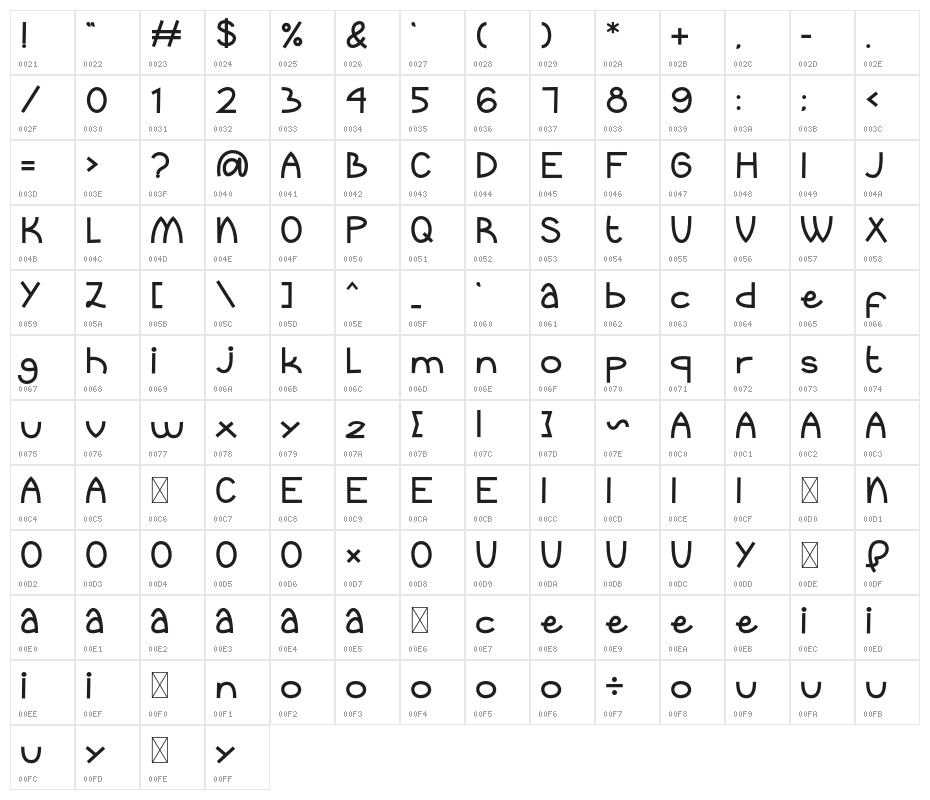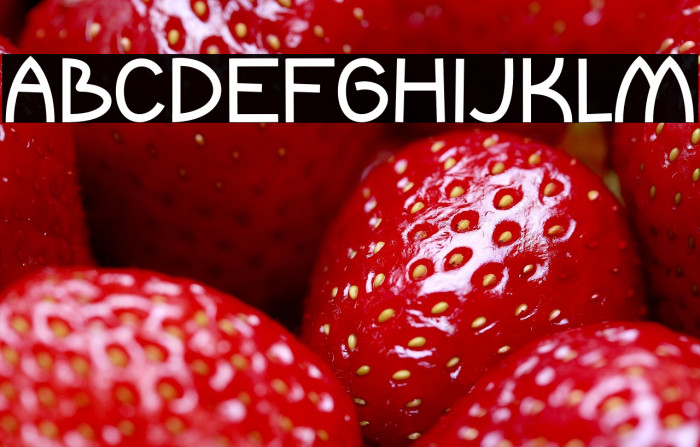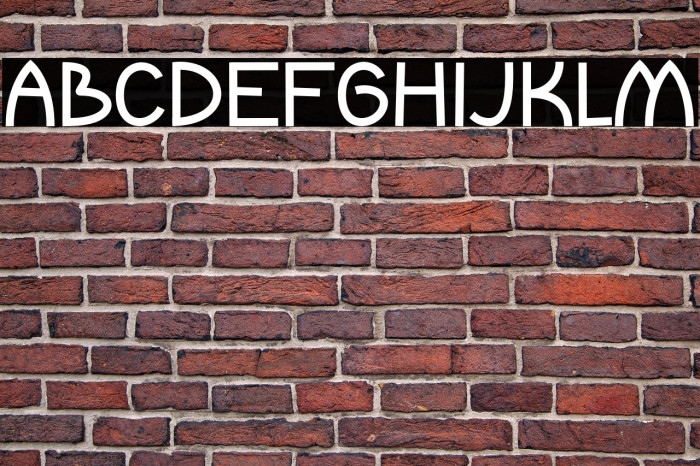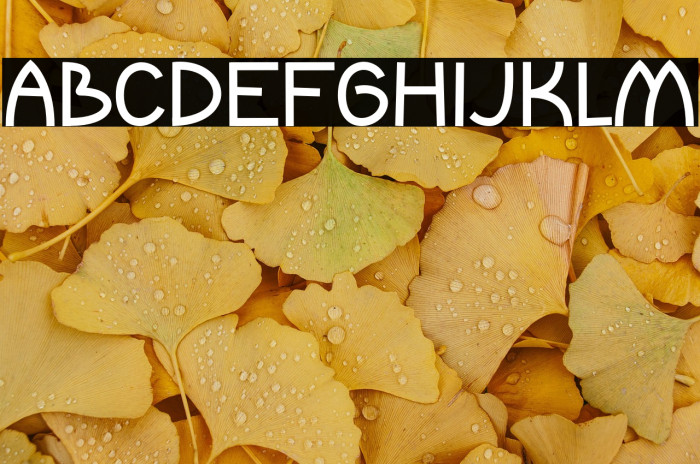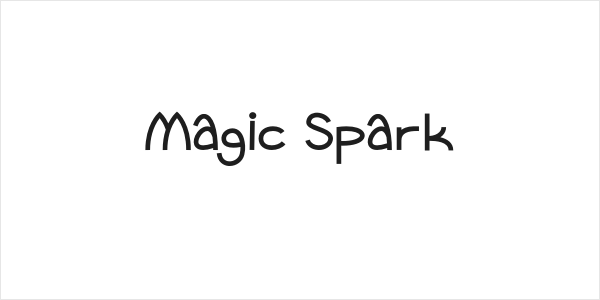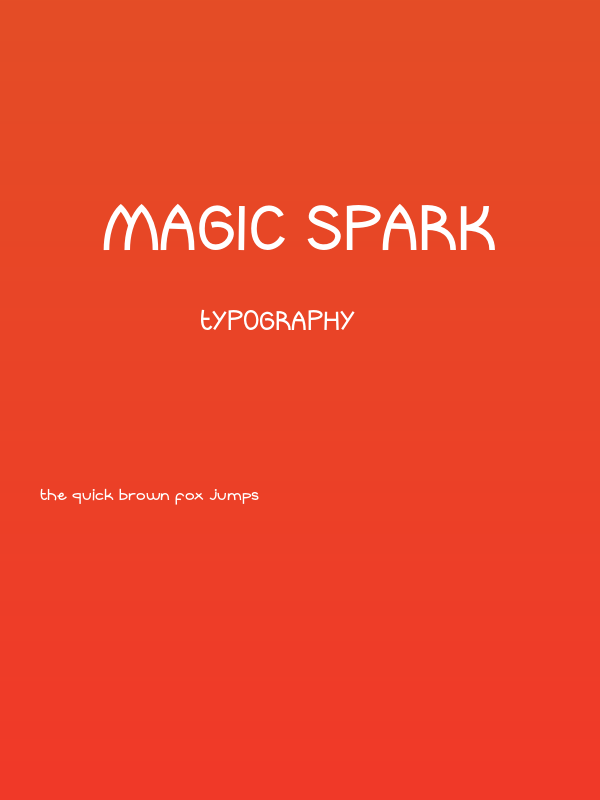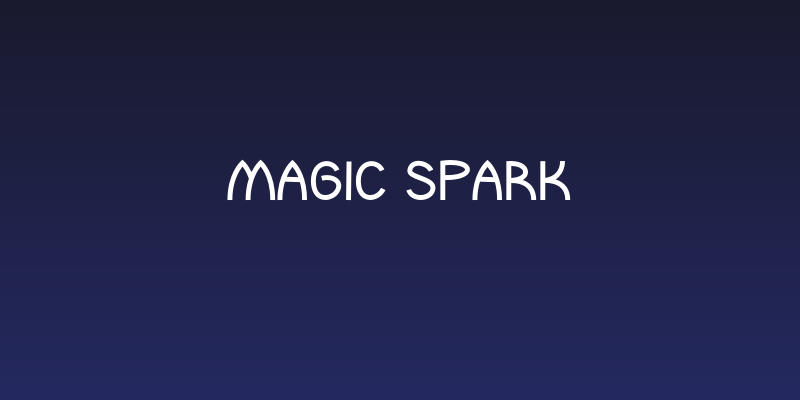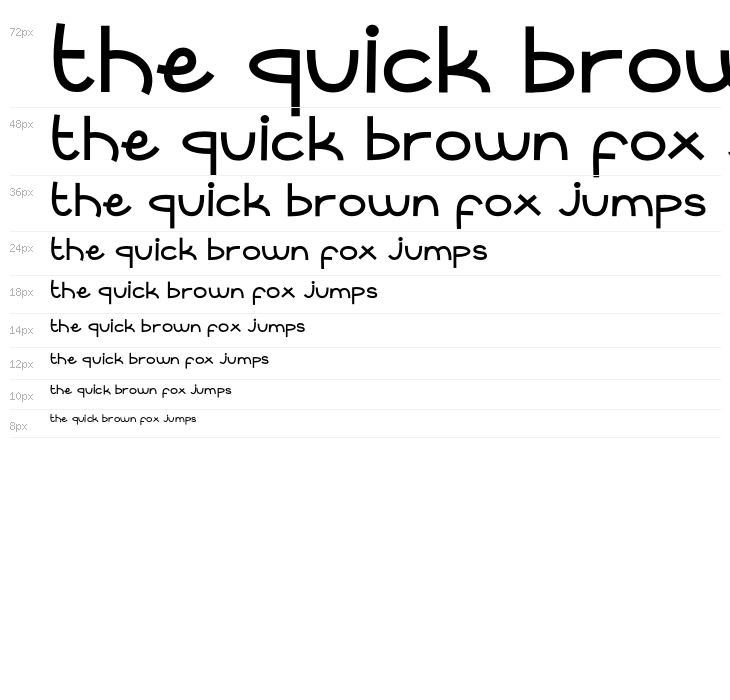
Magic Spark Font
Magic Spark Description
This playful and whimsical font features a unique blend of rounded and angular elements, creating a lively and engaging appearance. The uppercase letters are bold and slightly condensed, with distinctive curves that add a touch of fun. The lowercase letters maintain a consistent style, with smooth transitions and a friendly demeanor. Numbers are clear and easy to read, while the special characters complement the overall design with their quirky shapes. The font's overall style is modern yet playful, making it suitable for a variety of creative projects.
| Width | Condensed |
| Overall Style | Modern, Playful |
| Proposed Projects | Ideal for children's books, playful branding, greeting cards, and creative posters. |